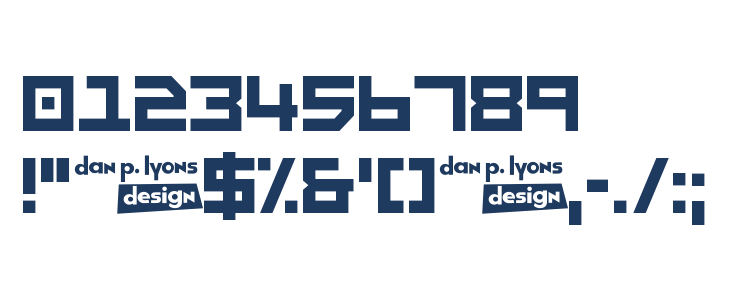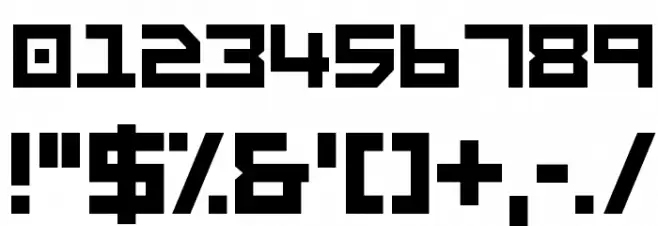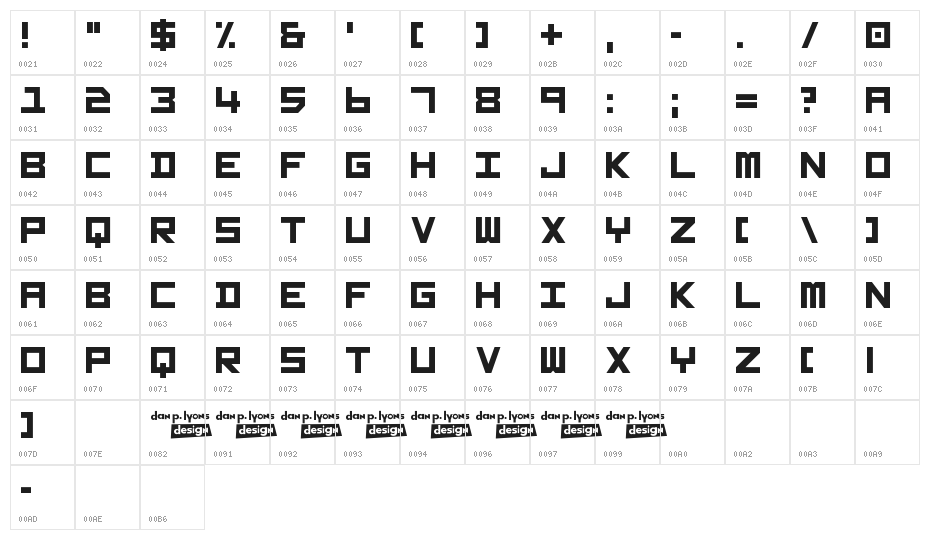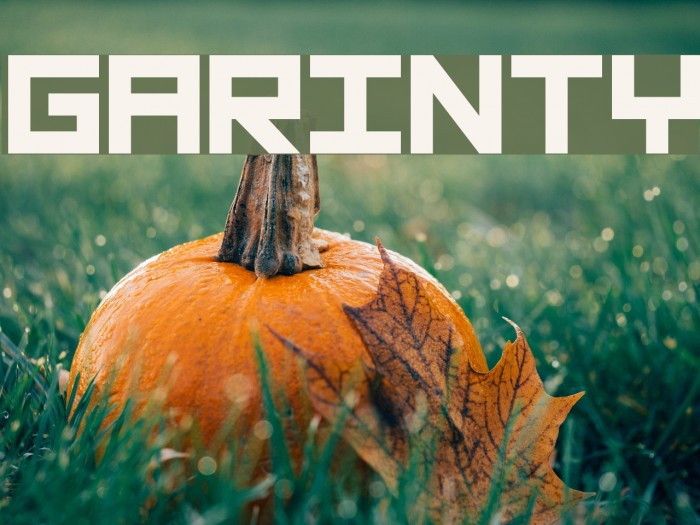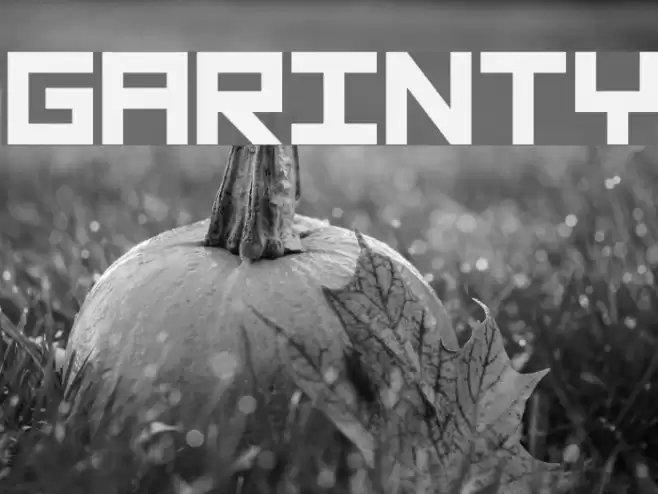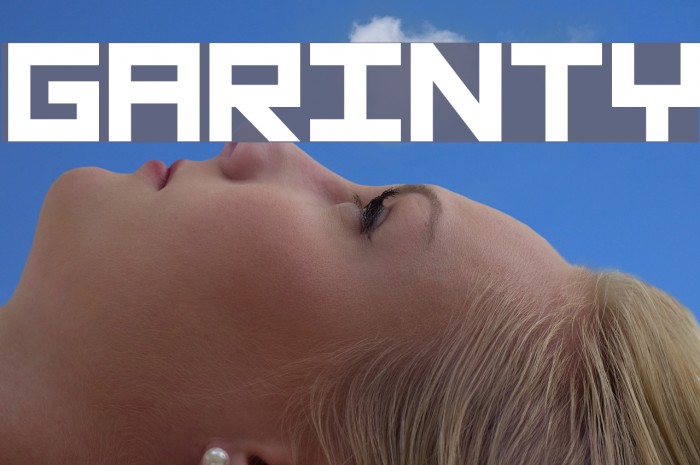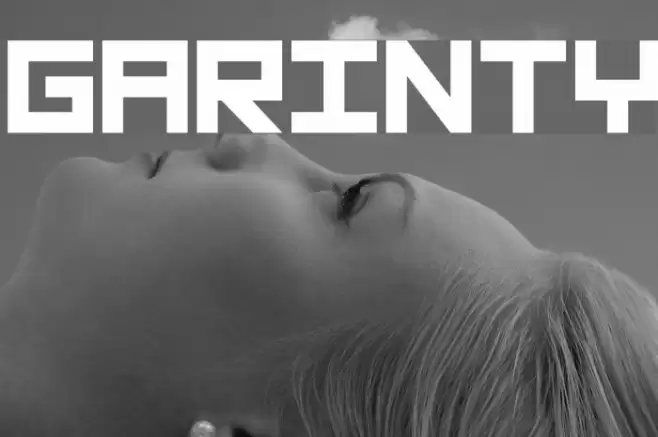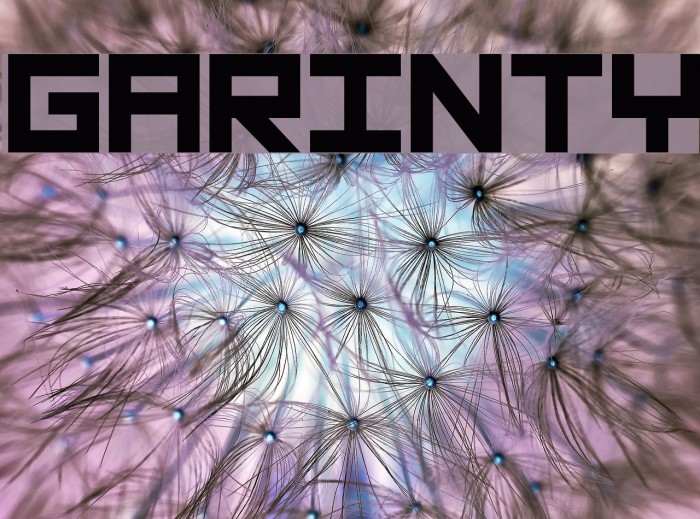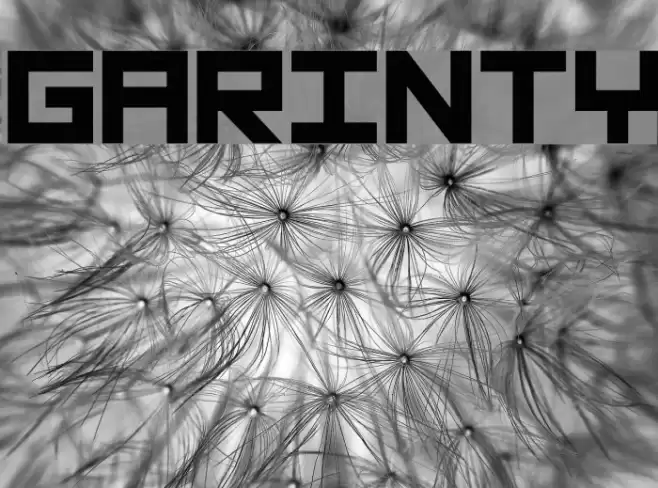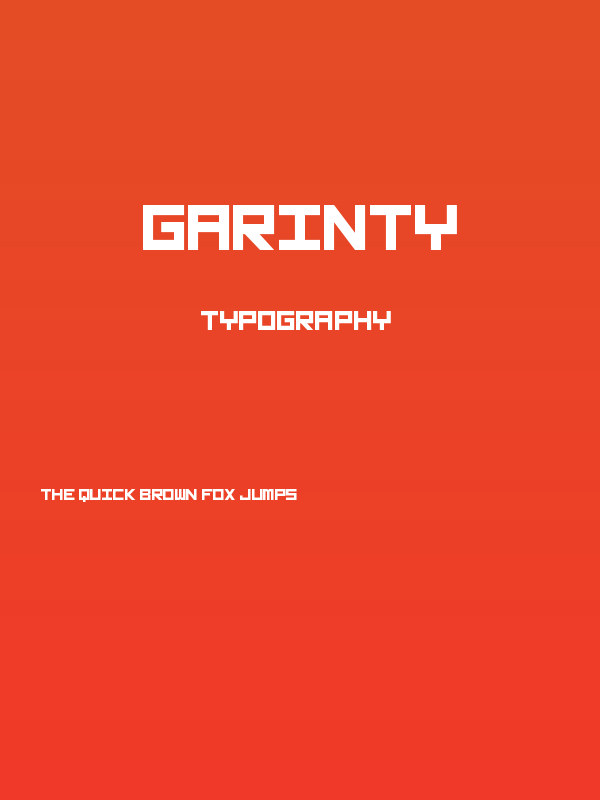
Garinty Font
Garinty Description
This font features a bold, geometric design with a distinctly modern and futuristic aesthetic. The characters are constructed with thick, uniform strokes, creating a strong visual impact. The angular shapes and sharp edges give it a digital or tech-inspired feel, making it ideal for projects that require a contemporary and edgy look. The uppercase and lowercase letters maintain a consistent style, while the numerals and special characters are designed to match the overall theme. The font's structure is clean and precise, ensuring readability while maintaining its unique style.
| Proposed Projects | Ideal for technology branding, digital media, video game titles, and futuristic design projects. |